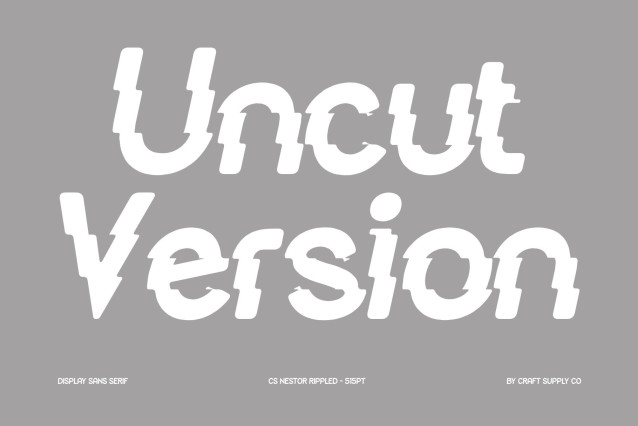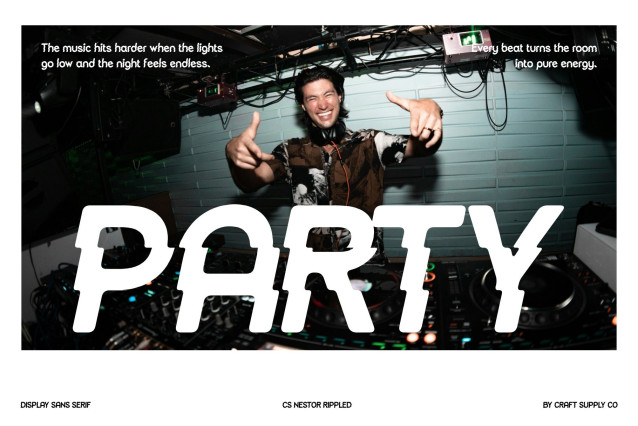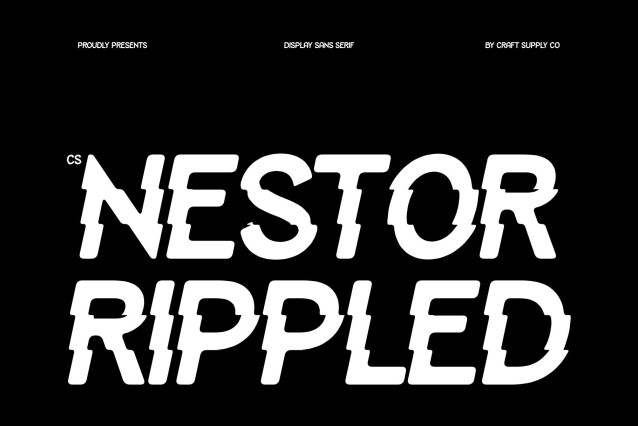
CS Nestor Rippled Font
CS Nestor Rippled – Sans Serif Display Font: Where Relaxed Energy Meets Liquid Wave Motion
Playful Contemporary Forms with Lively Personality
This is a sans serif display font designed to bring a relaxed, fun, and energetic atmosphere to your creative projects. Its clean contemporary structure combined with expressive styling creates a lively visual presence filled with movement, friendliness, and modern charm. Every character feels playful and engaging, making the font perfect for vibrant display compositions and carefree visual experiences.
Rippled Effect with Water-Inspired Flow
This font creates the illusion of typography reflected on water or shaped by flowing waves. The liquid inspired distortion introduces rhythmic motion, organic fluidity, and surreal visual depth, giving the font a refreshing and immersive appearance. This wave like styling adds dynamic energy while maintaining readability and modern clarity.